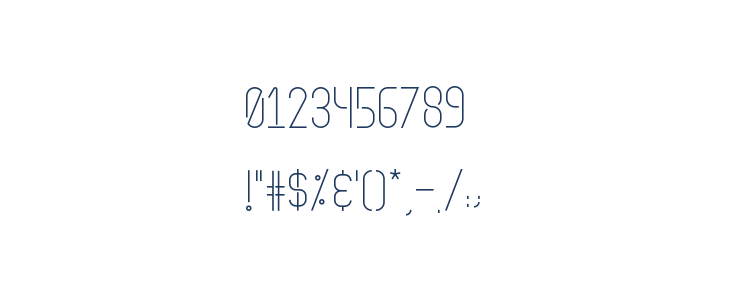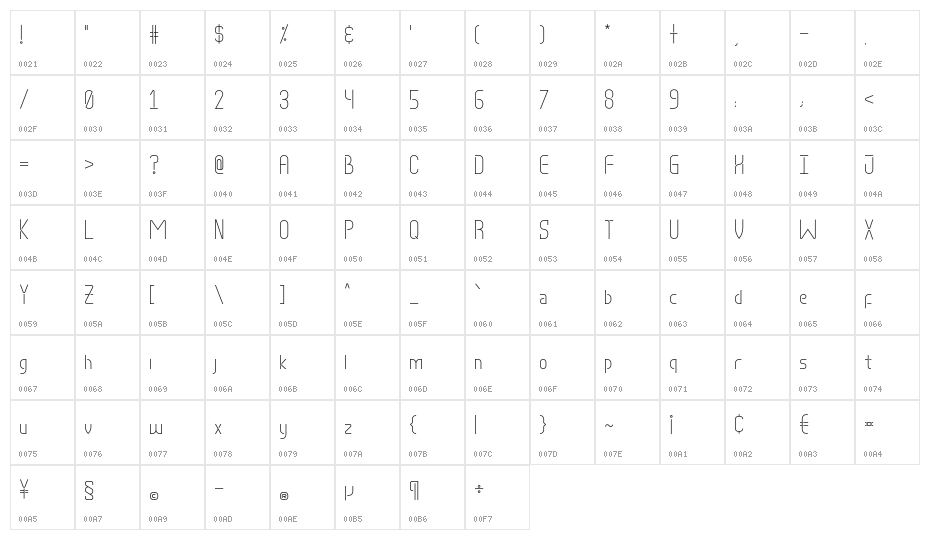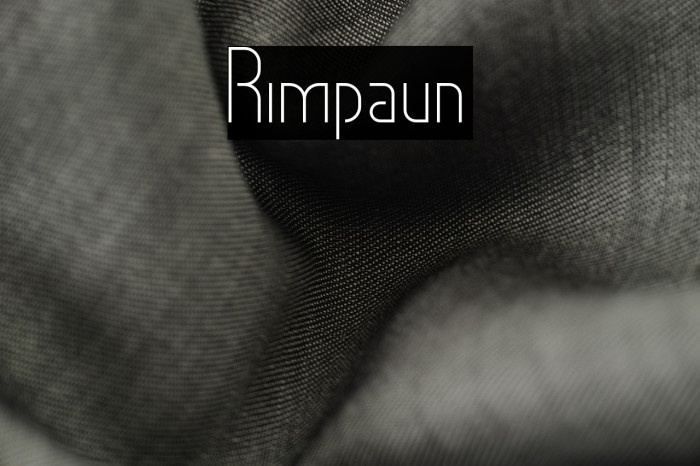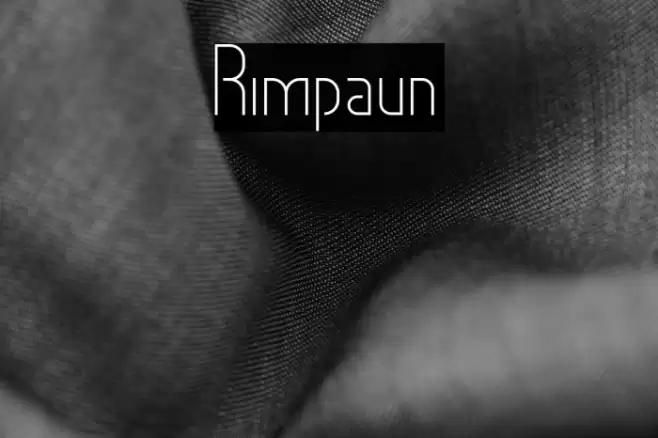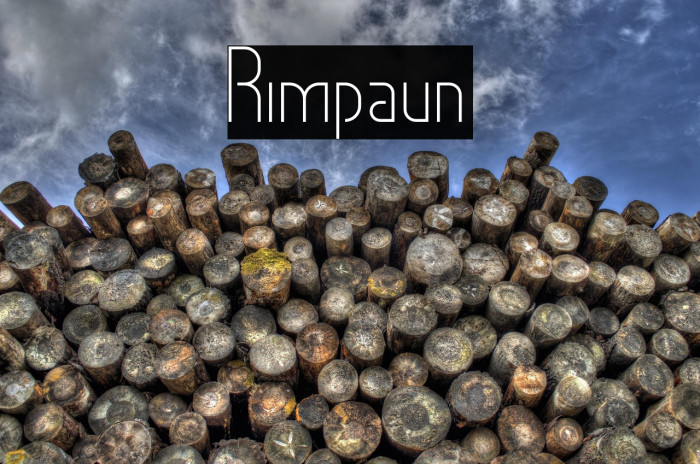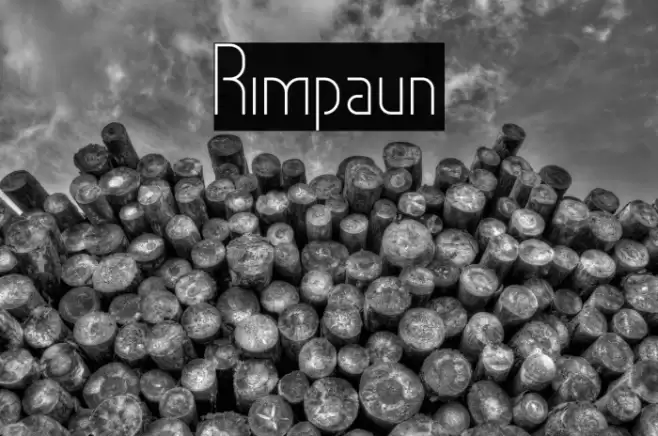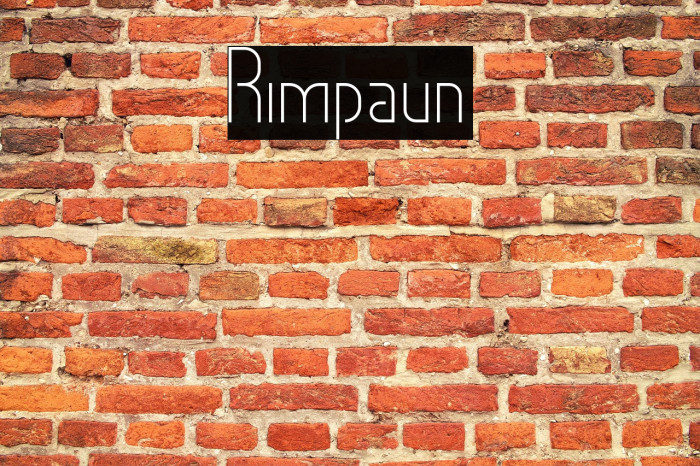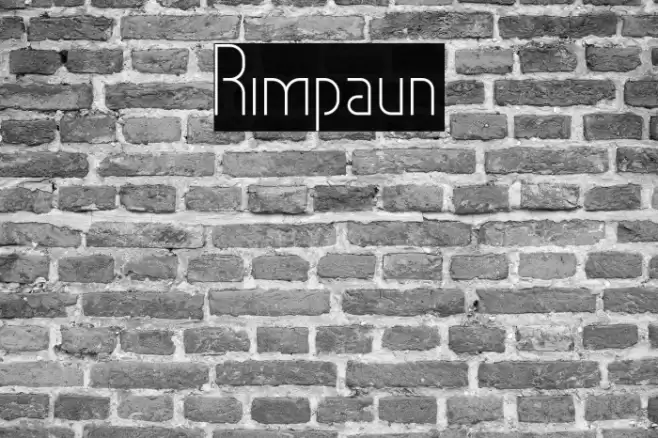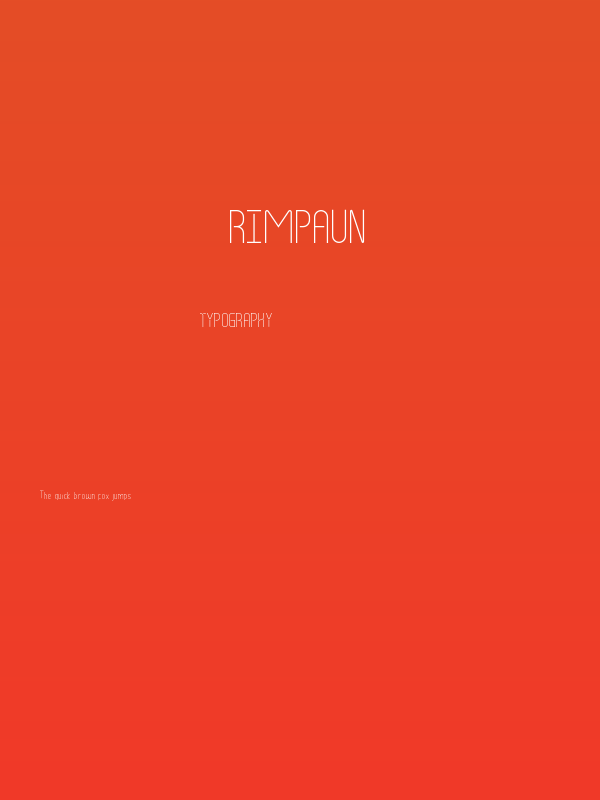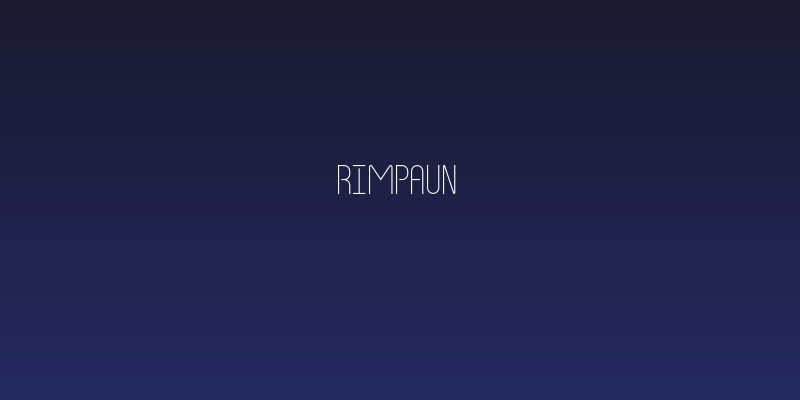
Rimpaun Font
Rimpaun Description
This font features a modern and minimalist design with a geometric structure. The characters are composed of thin, consistent lines that create a clean and open appearance. The uppercase letters exhibit a uniform height and width, while the lowercase letters maintain a similar geometric style, ensuring readability. The numerals and special characters are designed to complement the overall aesthetic, with a focus on simplicity and clarity. This font is suitable for projects that require a contemporary and sleek look, offering versatility across various design applications.